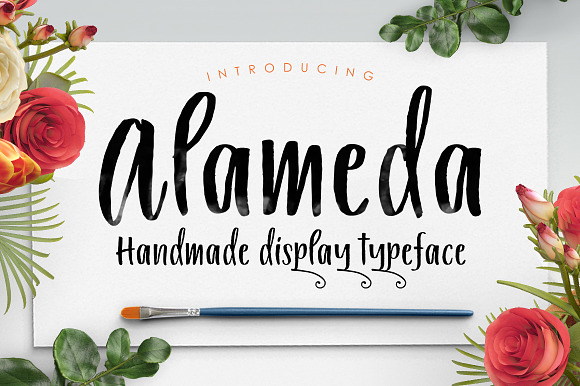
Alameda Typeface
Alameda is New font brushed very interesting, also provided some ligatures and swashes extra. Also with additional Alameda Typeface Slant, a font slant harmony to be combined with Alameda Typeface. Perfect for projects brands, logos, product packaging, posters, invitations, greeting cards, news, blogs, everything including personal charm etc.
Alameda features Open type feature, including initial and terminal letters,ligatures and International support for most Western Languages is included.
Why Alameda Typeface is worth a look
Alameda Typeface by Areatype fits naturally into Branding, posters, packaging, typography.